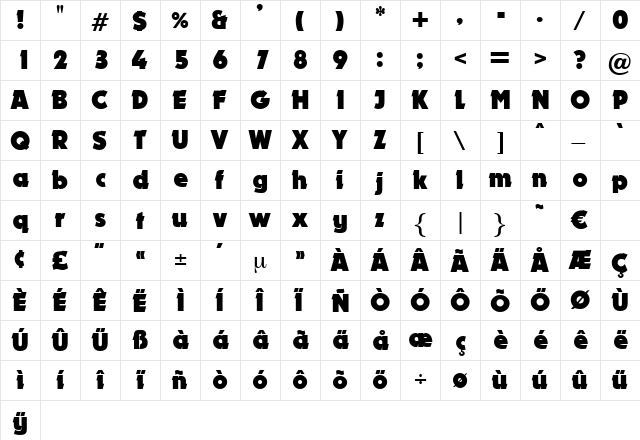
Lokomotive Regular
Design Context for Lokomotive Typeface
Lokomotive is a composed and adaptable typeface that performs quietly and consistently across a wide range of design contexts.